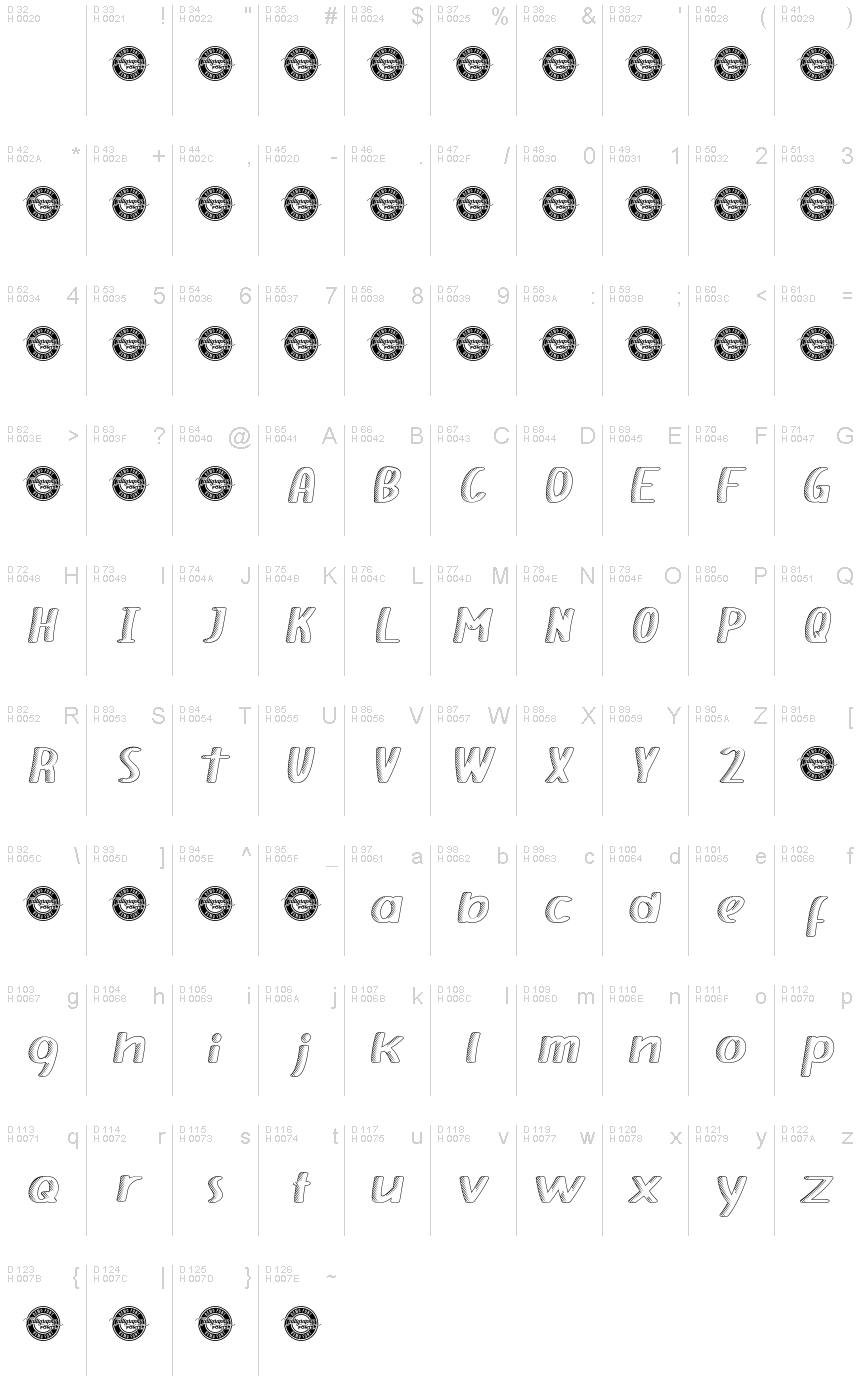
Vroom Vroom Demo
Vroom Vroom Demo is an irresistible display font by Calligraphy Fonts, brimming with bold personality and decorative charm. Its audaciously playful strokes create a sense of movement and excitement, making it perfect for grabbing attention. The striking bold weight further magnifies its eye-catching appeal, ensuring that it stands out in any setting.
This font thrives in creative design projects, such as vibrant posters, captivating headlines, or unique branding elements. Its spirited aesthetic adds a dynamic flair to any visual composition, making Vroom Vroom Demo an excellent choice for those looking to infuse their designs with energy and style.